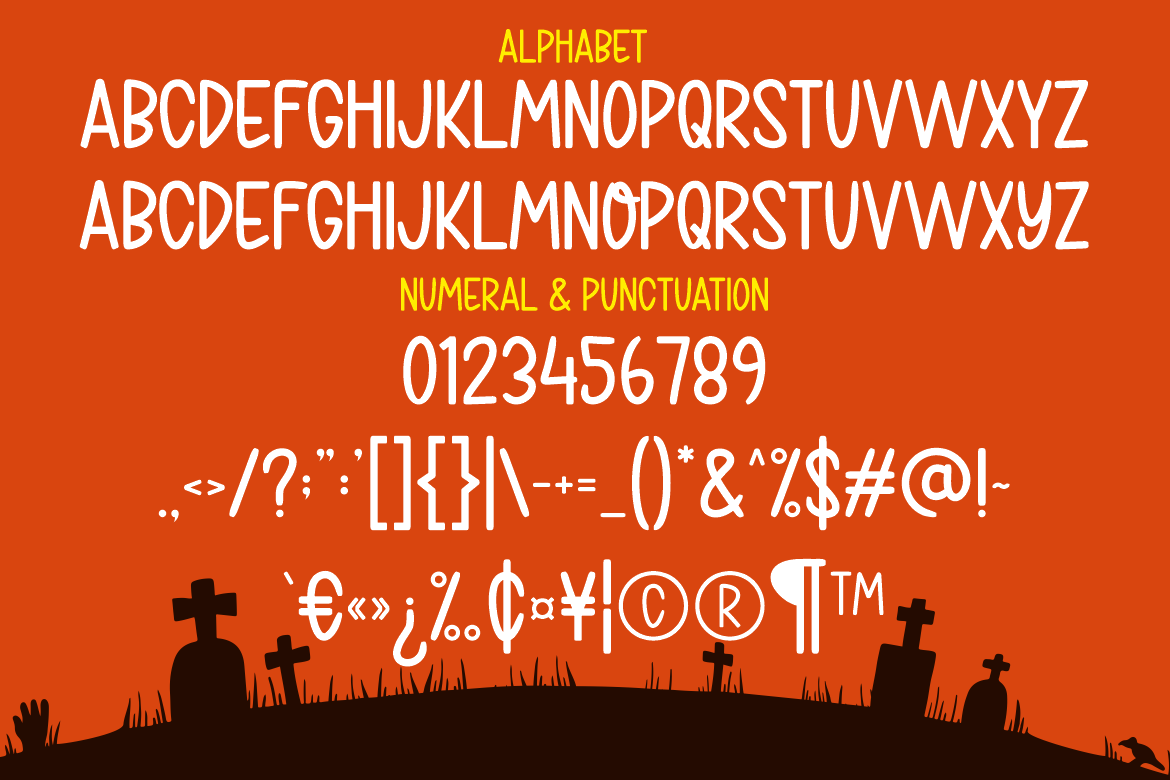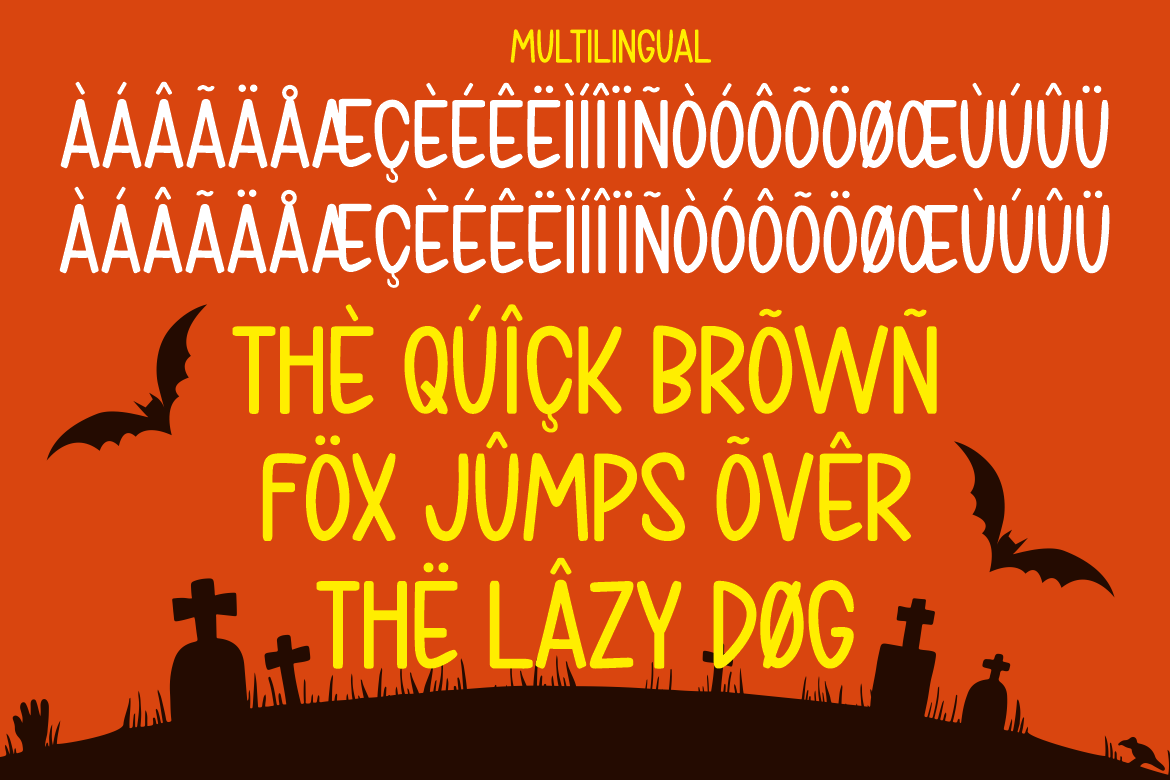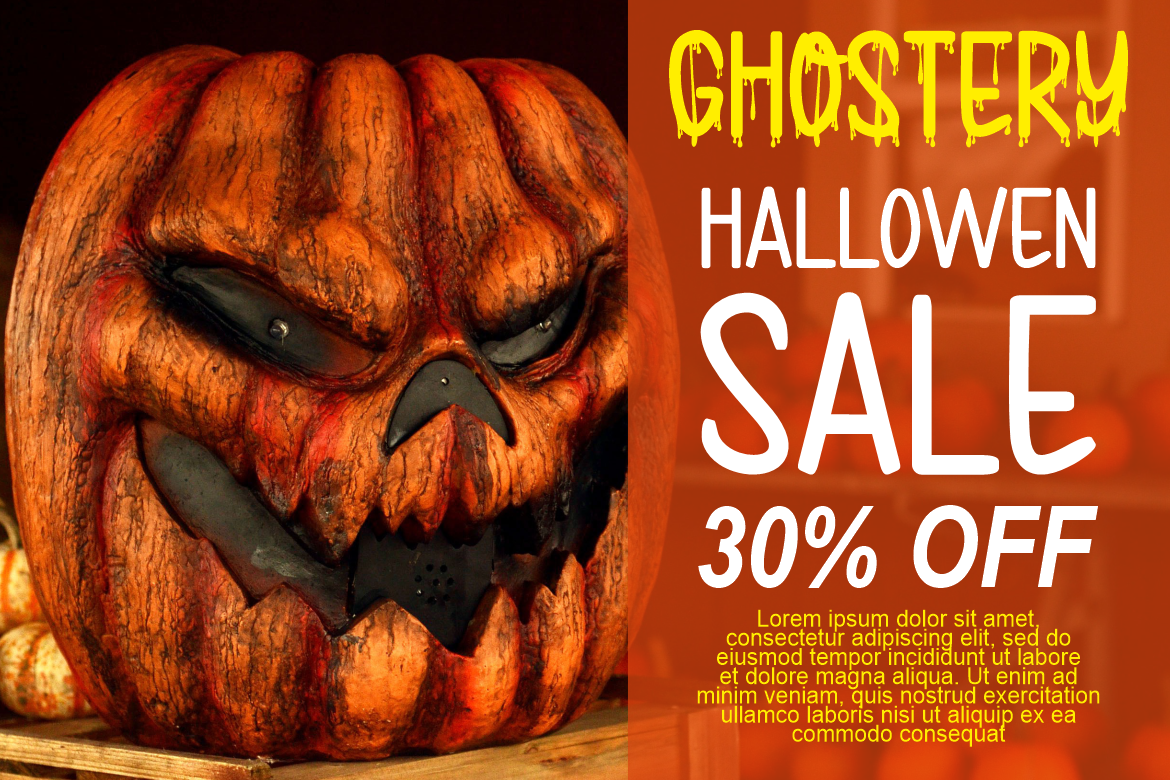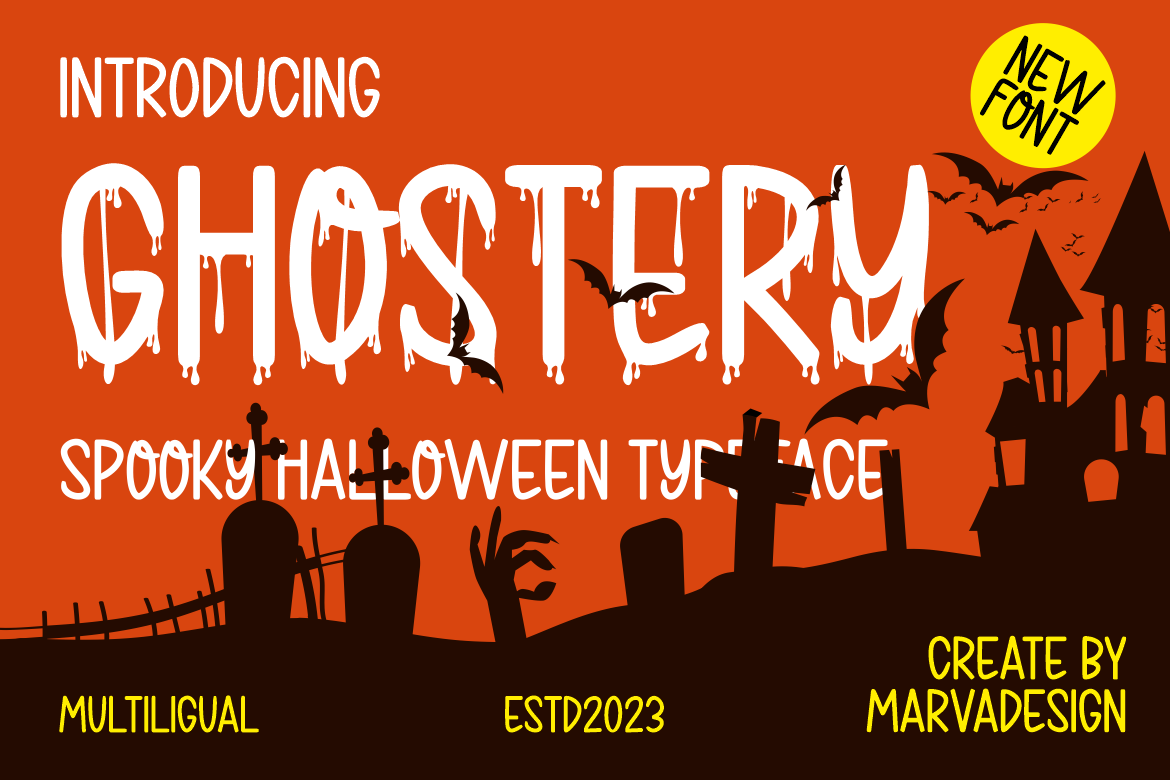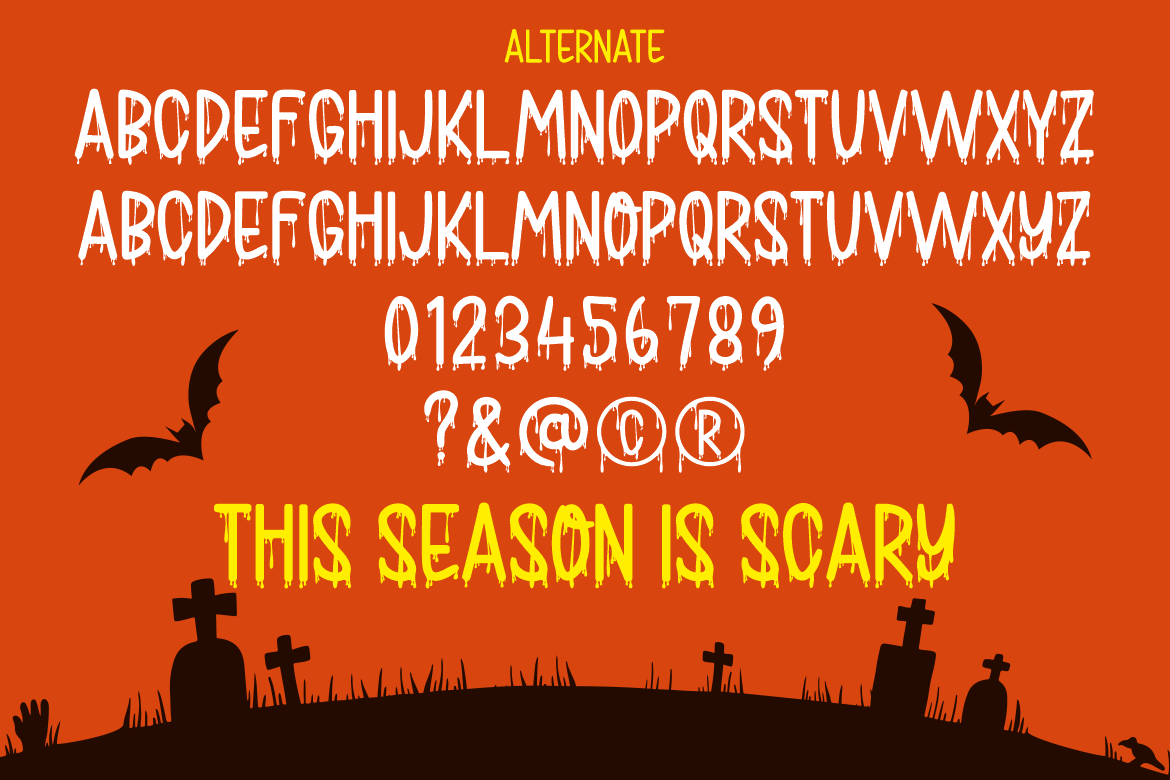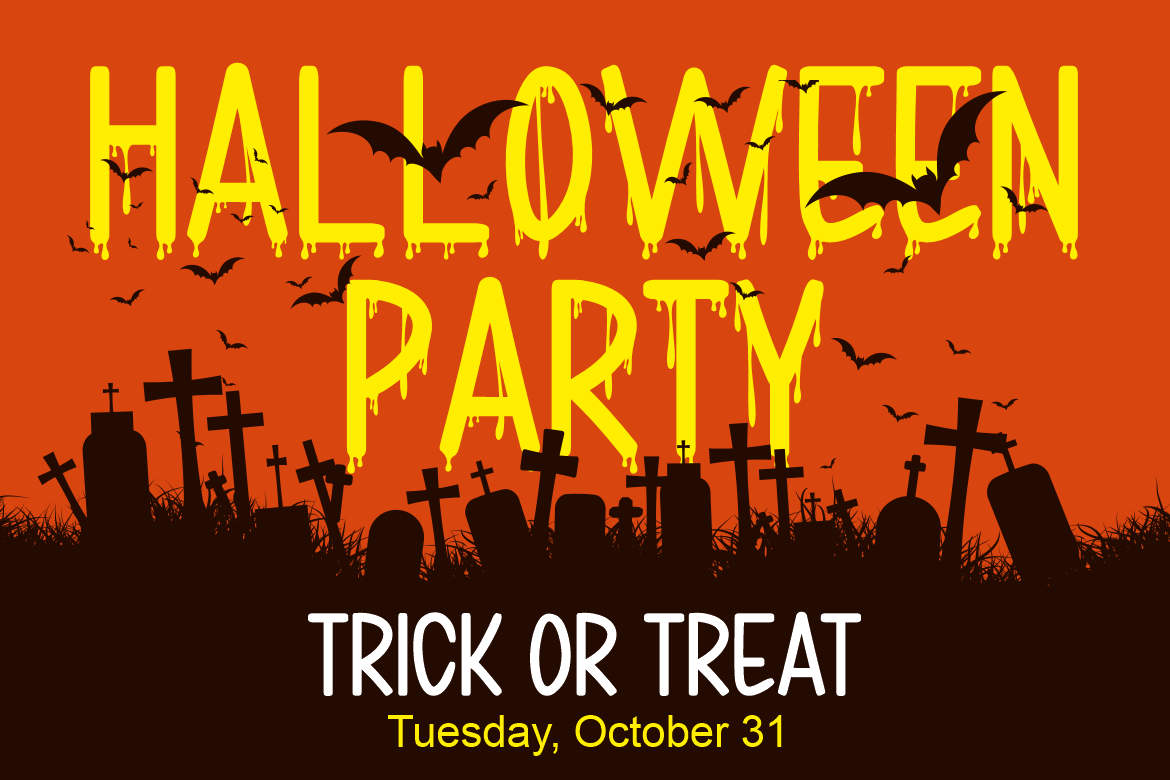
Ghostery Font
Introducing ghostery is a spooky and cute Halloween themed typeface. It features dripping letter shapes, evoking the eerie effects of melting wax, flowing slime, or ghostly apparitions. This font is suitable for horror themed designs, posters, party invitations, and seasonal branding.
* Uppercase
* Lowercase
* Multilingual
* Alternate